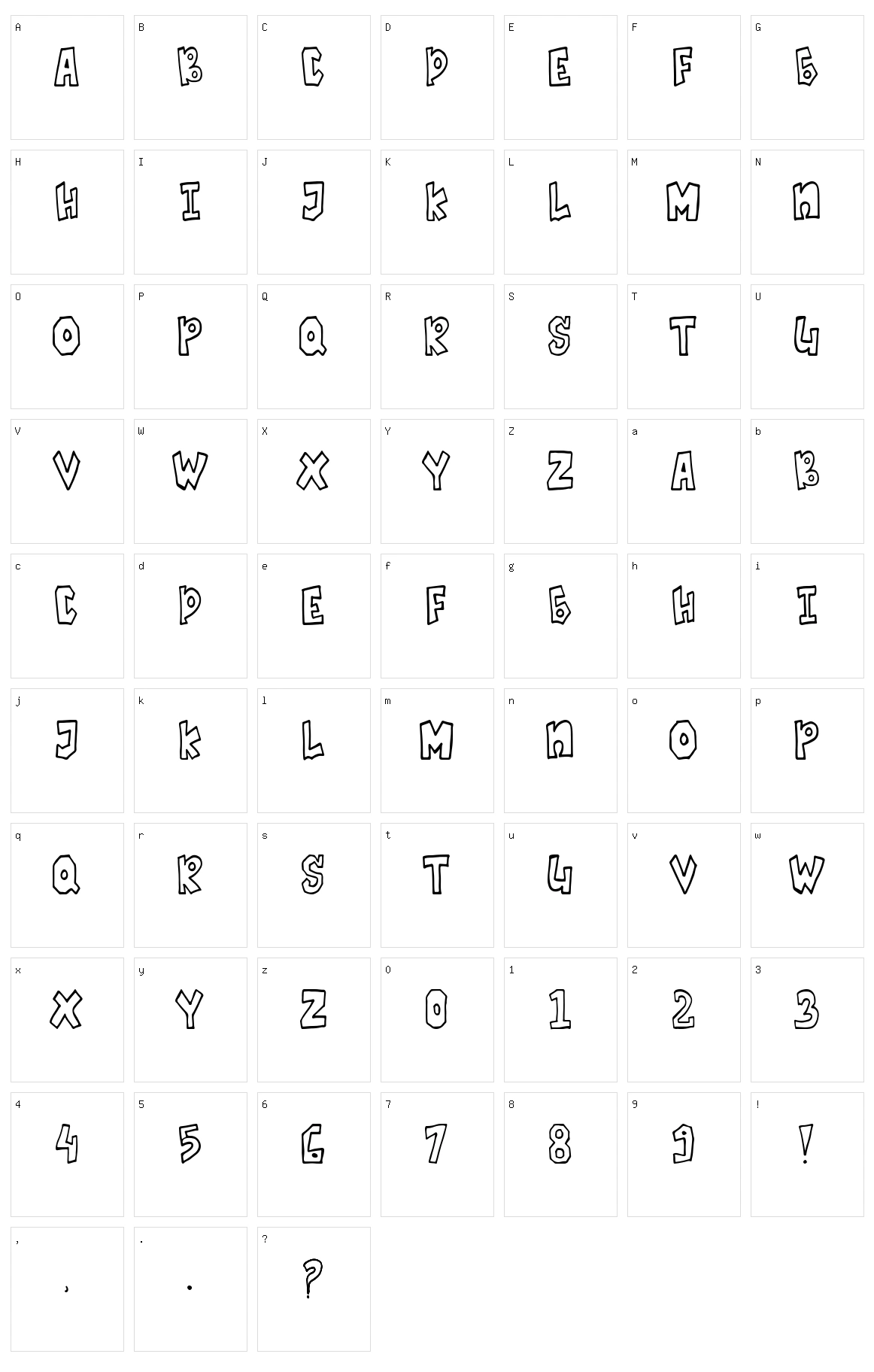
The free font Economis is carefully designed by Ditya Ananto, showcasing a thoughtful balance of creativity and usability and falls under the Cartoon font style. When you download the ZIP file, it contains only 22.61 KB of font files, making it lightweight and quick to download. Please review the license details below to understand permitted usage and distribution rights. If license information is not available, we recommend using this font for personal projects only or contacting the author directly for commercial usage permissions.